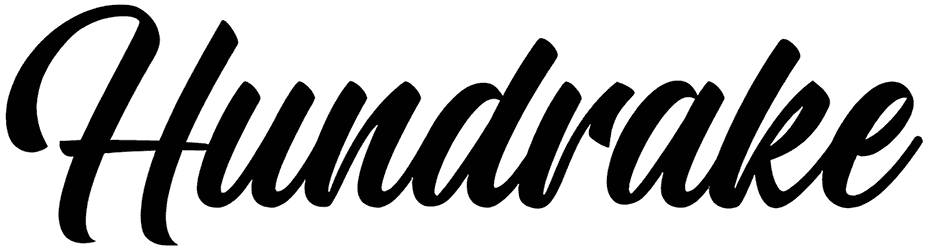
Hundrake Font
A classic and cool calligraphy font, such as the present item, could be a perfect selection for many projects, such as a shop sign or whatnot. This script font has a condensed and cursive visual, and you have almost all characters. Let’s set the Hundrake font on your new layout and enjoy the feedback.
Hundrake is a Bold modern and stylish script font with strong characteristics. It’s allowing you to create logotypes, lettering crafts, labels and many others. Add it to your most creative ideas and notice how it makes them come alive!